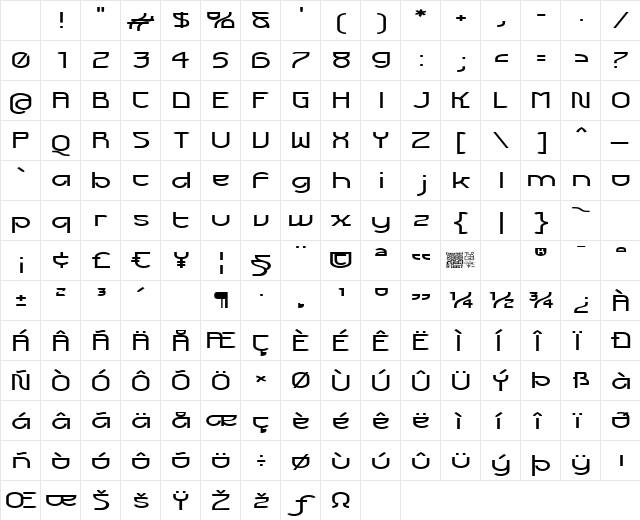
Futurex Voyager has a distinctly futuristic character, with geometric precision and clean angles that feel at home in technology, gaming, and sci-fi contexts.
Pro Tip: Try Futurex Voyager with generous letter-spacing in UI labels and navigation - the geometric forms benefit from room to breathe.